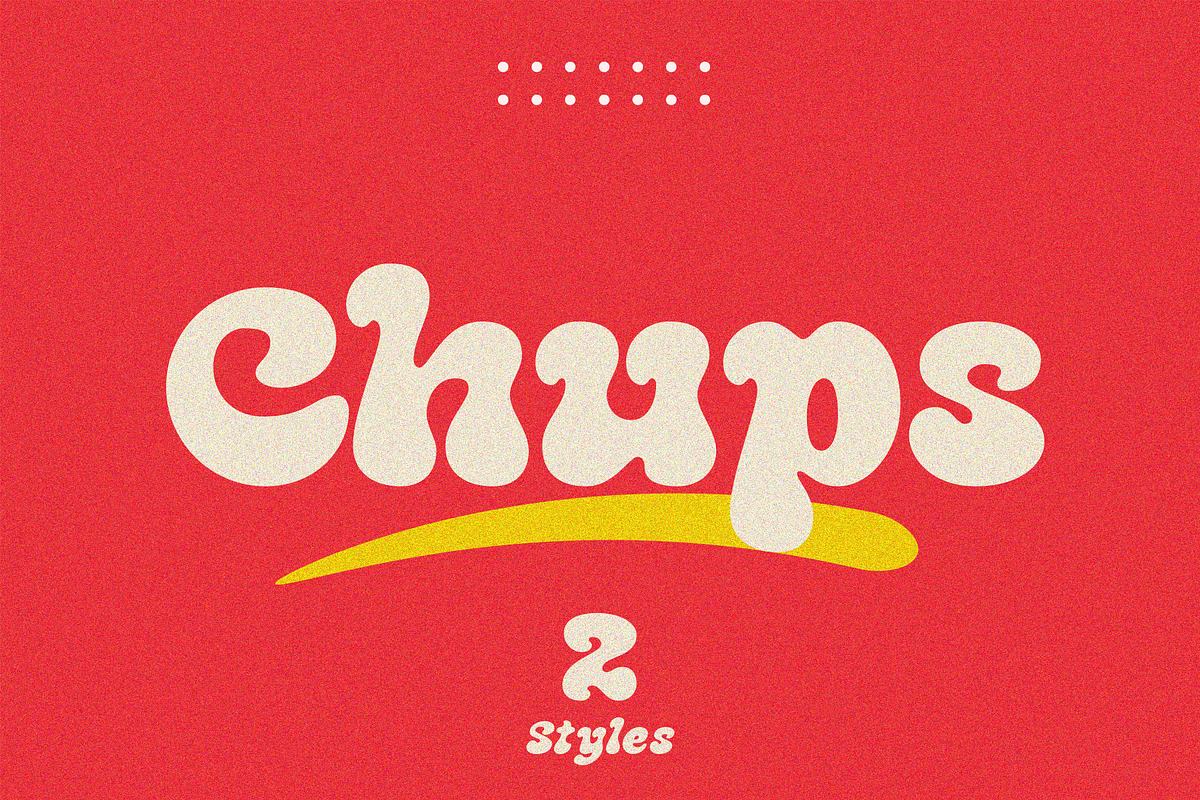
Chups - Groovy Retro Font Free Download
Chups - Groovy Retro Font Free Download is a fun and funky typeface that brings the bold, playful energy of the 60s and 70s into modern design. Featuring rounded, bubble-like letterforms and smooth curves, this font is perfect for retro-inspired branding, posters, t-shirts, social media graphics, and anything that needs a pop of groovy nostalgia.
Its vibrant and energetic style makes it ideal for creative projects that require a lively, carefree feel. Whether you're working on a vintage logo, a music event poster, or any design that needs a retro touch, Chups adds personality and flair to your typography.